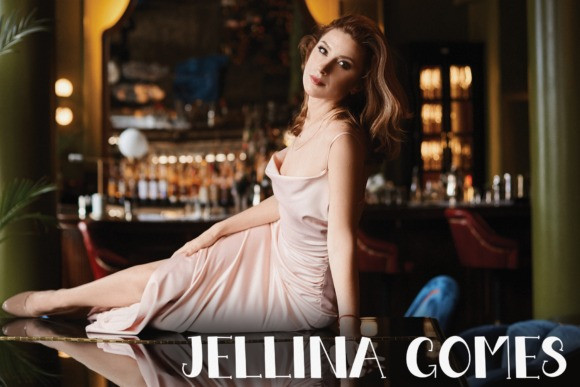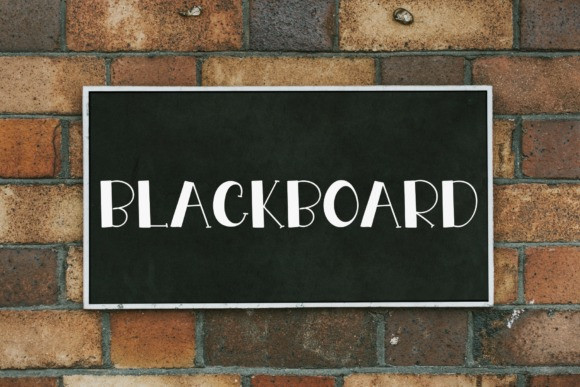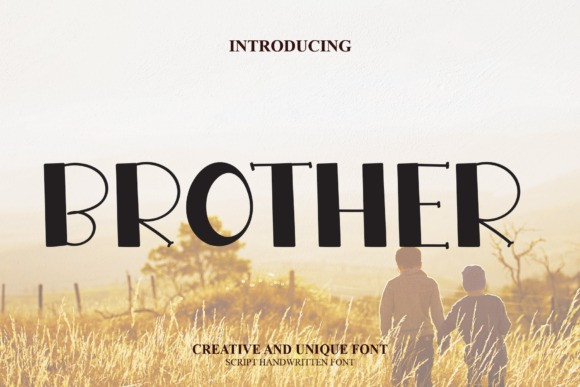
Brother Typeface
Brother Typeface, is a cool and bold display font. The characters are perfect for wall hangings, wedding invitations, social media post logos, advertisements, product packaging, product designs, labels, photography, watermarks, invitations, stationery and any project that requires modern typography.